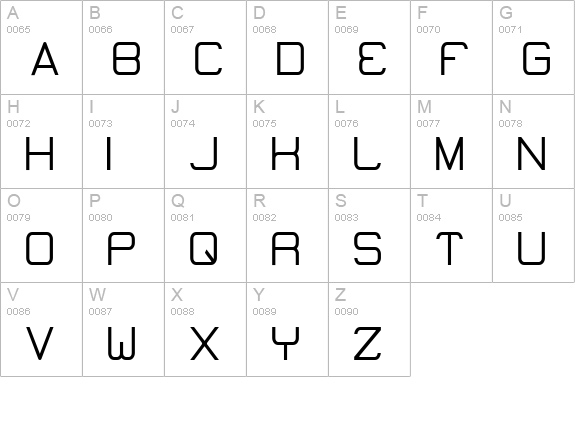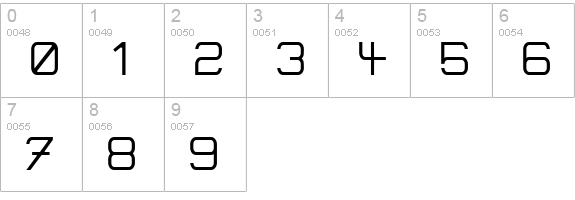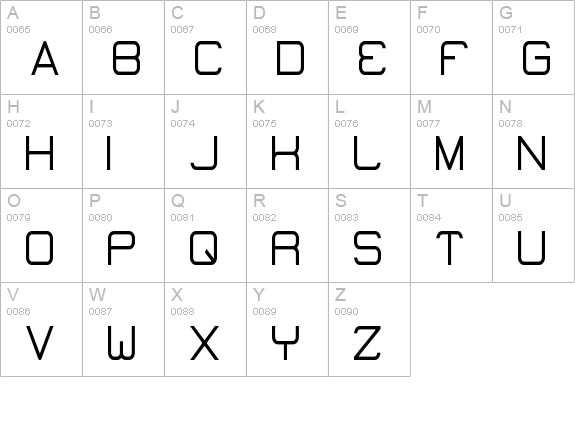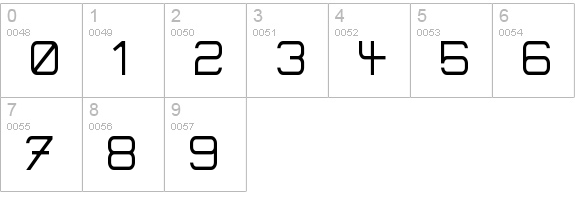
MicroMieps Diet Font Details
Introducing MicroMieps Diet font, a sleek and modern typeface designed to add a touch of elegance to your projects. This versatile font is perfect for a wide range of applications, from branding to packaging design, and everything in between. Its clean lines and subtle curves give it a contemporary look that is both stylish and easy to read. MicroMieps Diet font is the ideal choice for those looking to make a statement with their typography. Whether you're creating a logo for a new business or designing a poster for an event, this font will help you stand out from the crowd. Its minimalist design ensures that your message is front and center, without any unnecessary distractions. Best of all, MicroMieps Diet font is completely free to download at FontsMarket.com. So why wait? Give your projects the professional touch they deserve with this stunning typeface. Download MicroMieps Diet font today and take your designs to the next level.